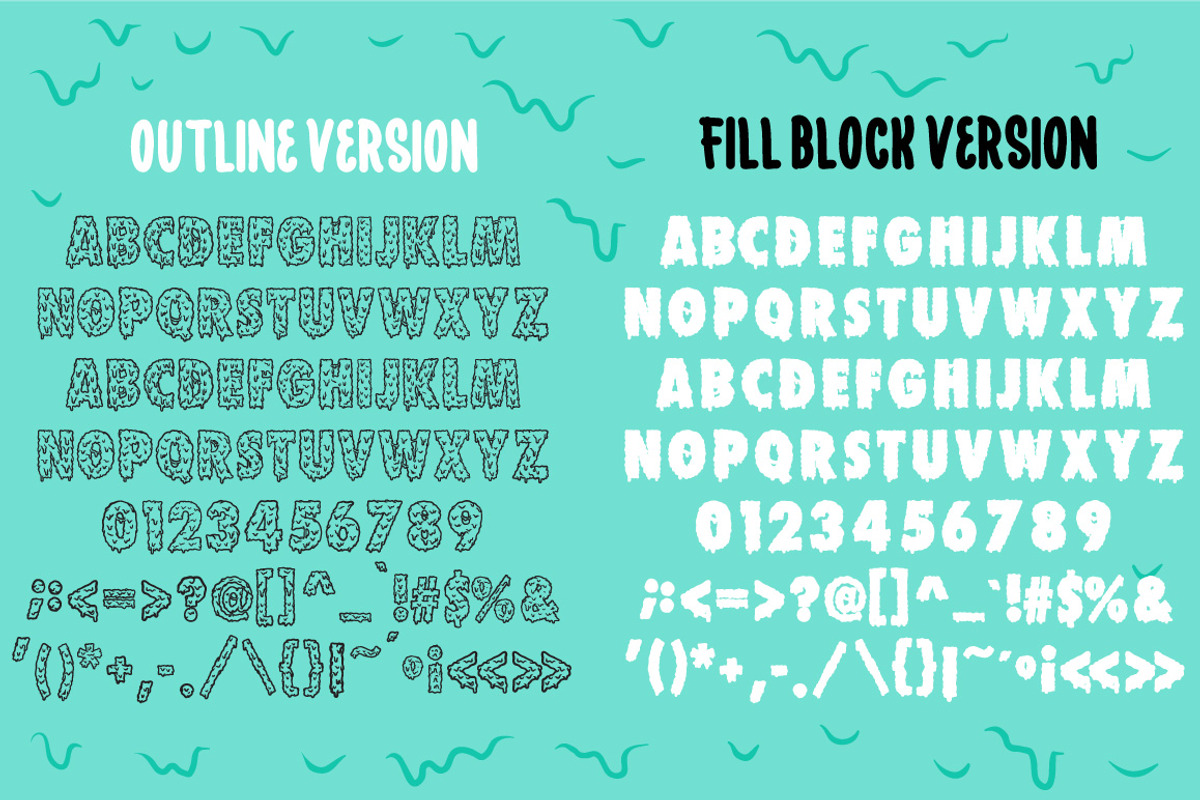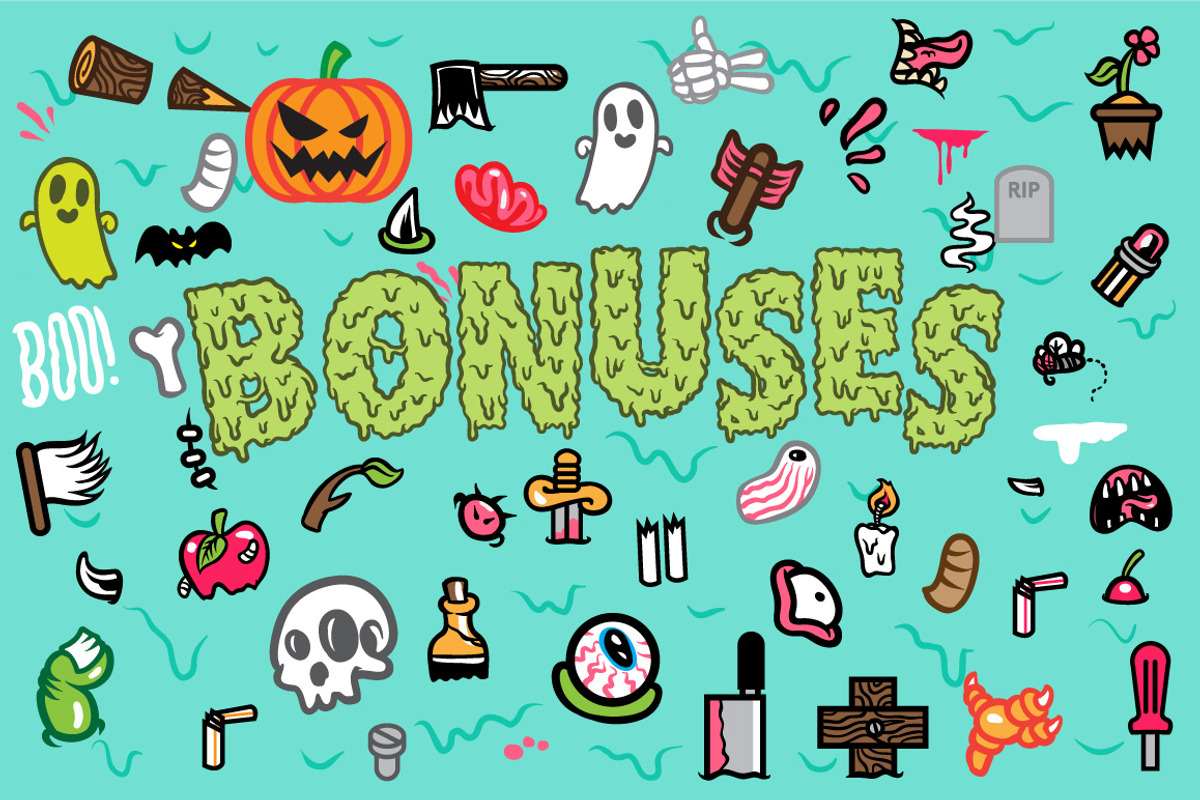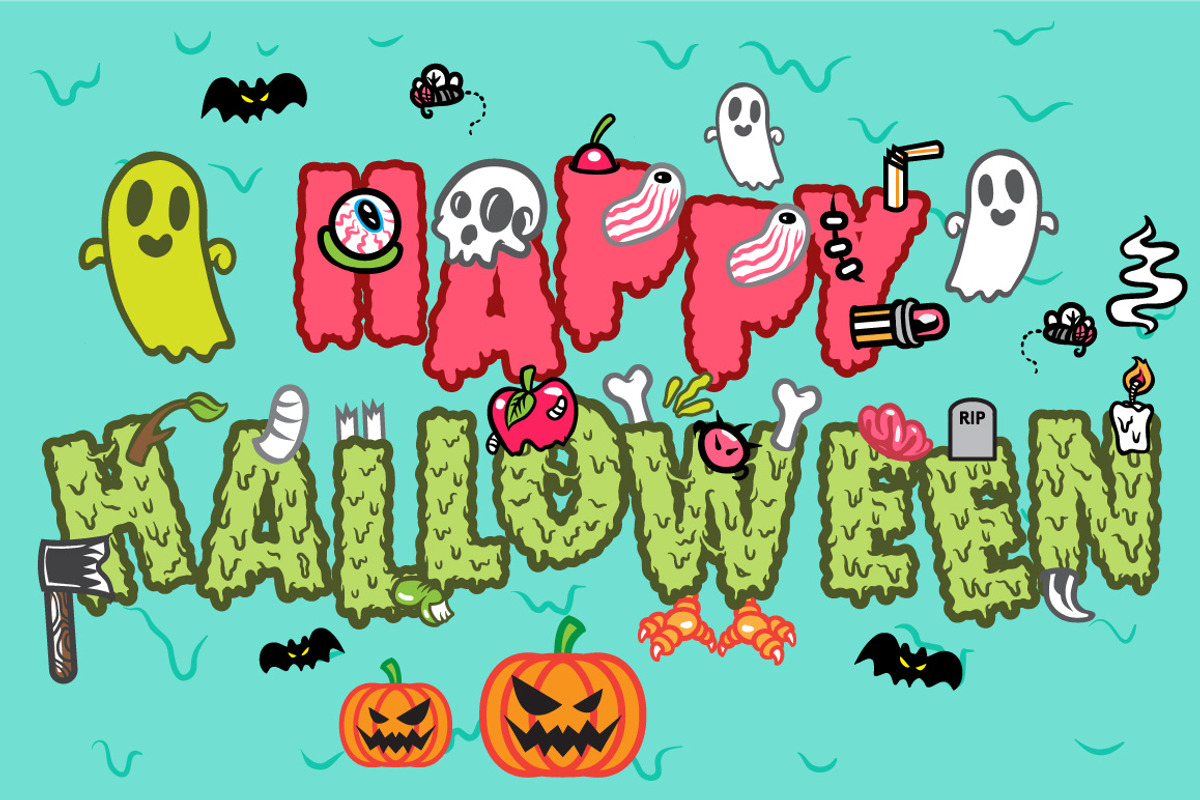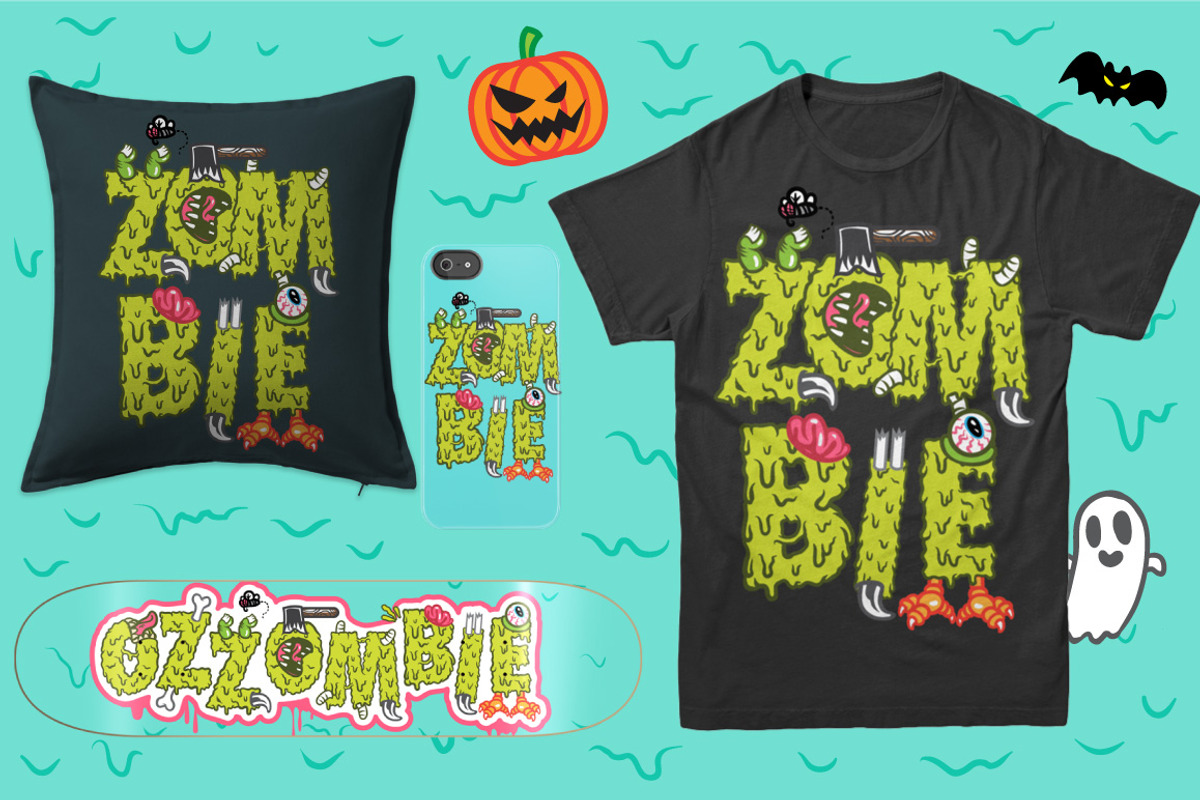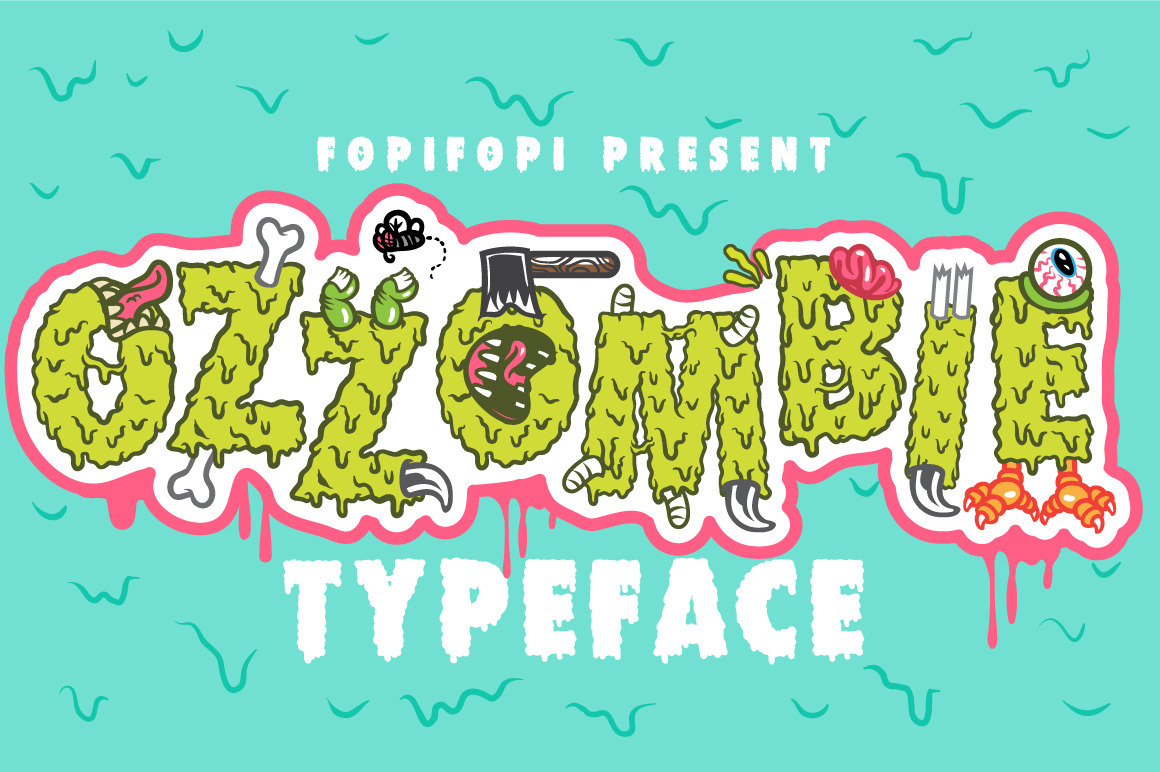
Life is scary, but it’s only when we think about it that way. BUT, when it comes to HALLOWEEN... it doesn’t only live in our mind. We make it real and we celebrate the fears. That’s actually a very cool way to fight the paranoia! Logically speaking, we won’t be so afraid of the thing we created ourselves, will us? The scarier it gets, the ....... it will be (the purposely left blank space is for you to answer).
Now, comes to that realization, we definitely want to be part of the Halloween making process! We contribute by launching our OZZOMBIE typeface (the first time ever in Creative Market!), which consists of 2 mini fonts: The outline version & The fill block version. And to complete the horror, we bring you a bonus of the devilishly-cute toppings you can apply to any of your creepy creations for the “it” day! We hope you got the perfect idea already how to collect the most and loudest scream.
DO NOT BUY! KERNING ISSUE STILL NOT FIXED TWO YEARS LATER! Despite comments and messages asking to have the kerning issue fixed with this font, fopifopi disregarded these pleas. Both OZZOMBIE fonts continue to have different kerning which makes lining up the fonts a gigantic problem. To make matters worse, fopifopi denied this is an issue despite comments showing this is a continual problem. I was then bribed with a refund instead of just fixing the kerning! DO NOT BUY!!!!! Hopefully fopifopi will turn this into a positive learning experience and fix this issue. However, I doubt it considering there has been two years to fix this problem. Ridiculous.